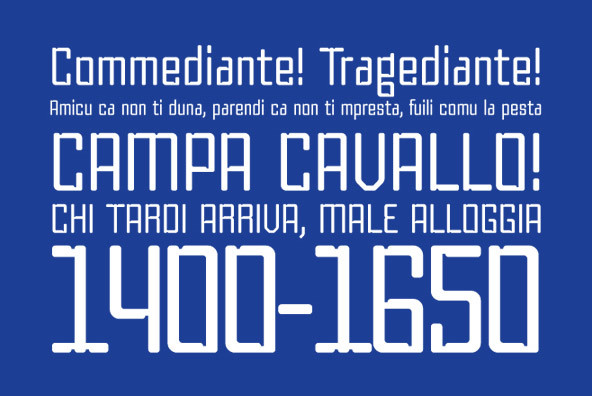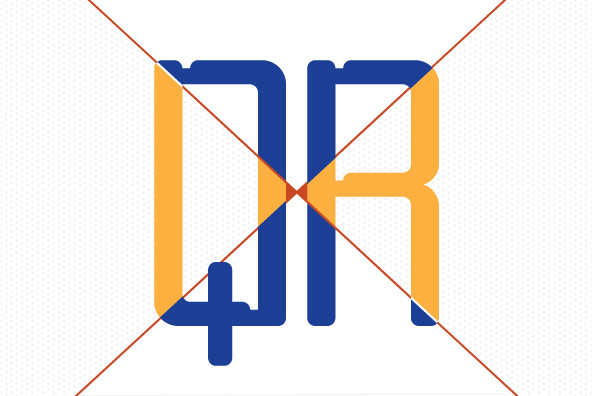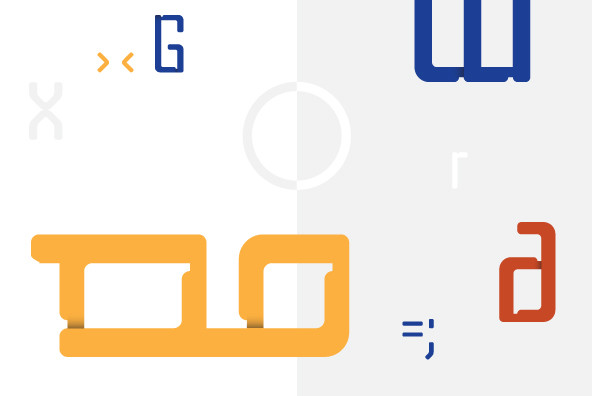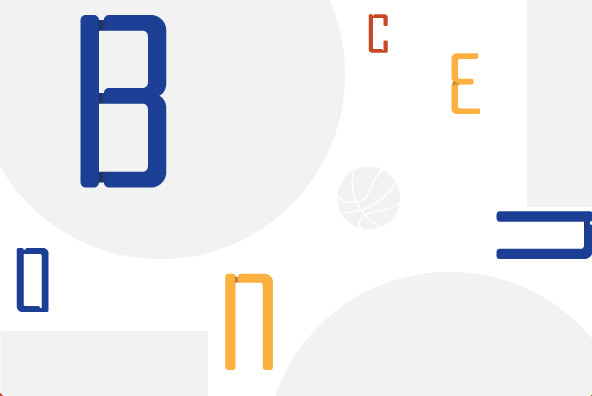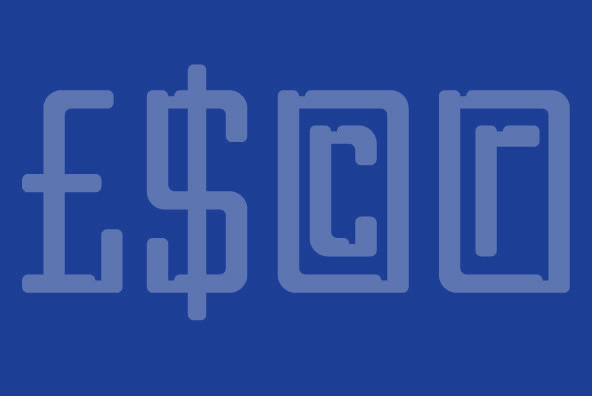
Taint is a modular squarish font with round corners for headlines and shorter strings of text. Works great in masculine, fashion and or digital themed projects.